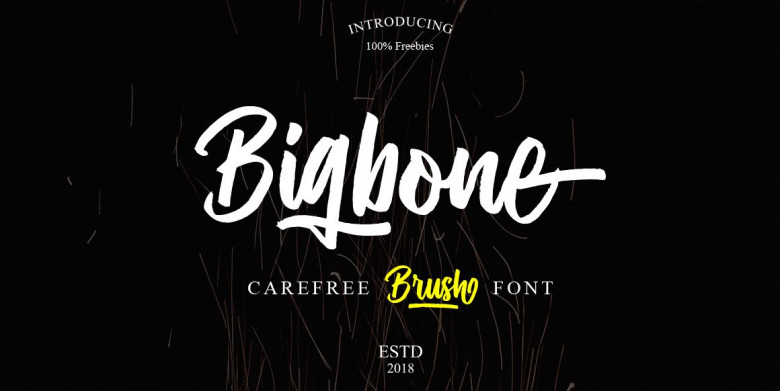
Bigbone Brush Font
Introducing Bigbone! Bigbone designed by Ferdiansyah_ijemrockart. Bigbone – a fun and imperfect modern brushed script font with a tough of uniqueness driven. Design like a professional with this typeface that fits perfectly for your wedding invitations, street ads, Instagram posts, t-shirt design, branding, and much more.